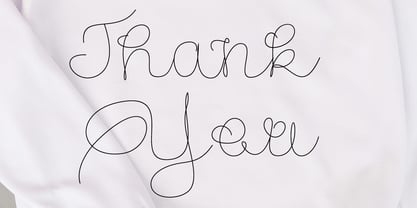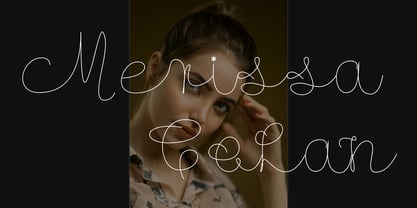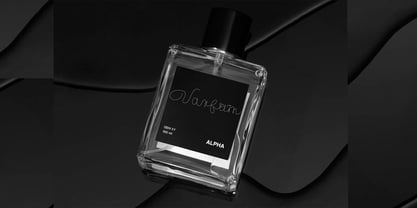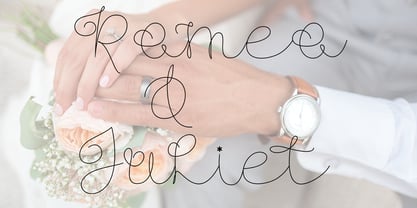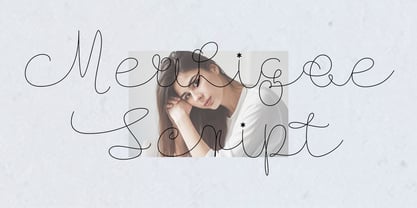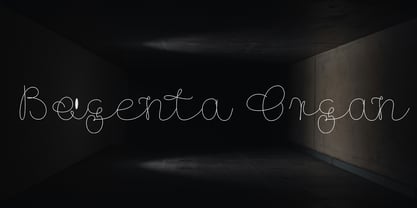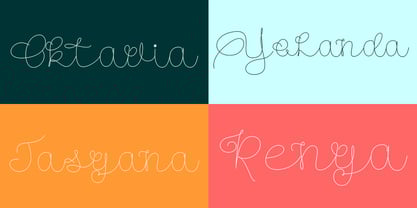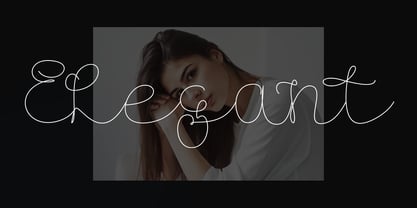
Meuligoe Script
by Shape Studio
The Meuligoe Script Font Family was designed by Teuku Saifullah and published by Shape Studio. Meuligoe Script contains 1 styles. More about this family
is a new modern script calligraphy font with an irregular baseline. Trendy and feminine style. Script looks lovely on wedding invitations, thank you cards, quotes, greeting cards, logos, business cards and more. Perfect for using in ink or watercolour. Including initial and terminal letters, alternates, ligatures and multiple language support.
Designers: Teuku Saifullah
Foundry: Shape Studio